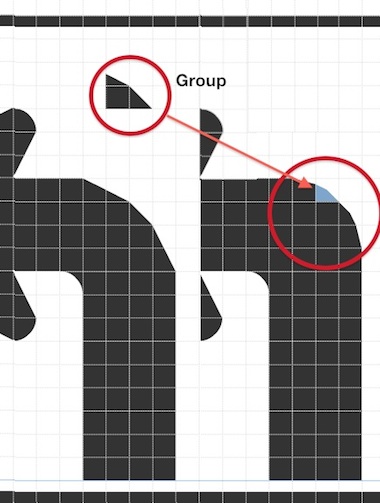
And what do you think about this other solution for the corners, please? I'm trying this for some of my projected fonts.
I can see where you're going. My curves look a bit cut off. But the one you're suggesting looks a bit tight in this context, and that is not what I was aiming for here.
It's a perfectly good curve, though. And I'm looking forward to seeing what you're working on.